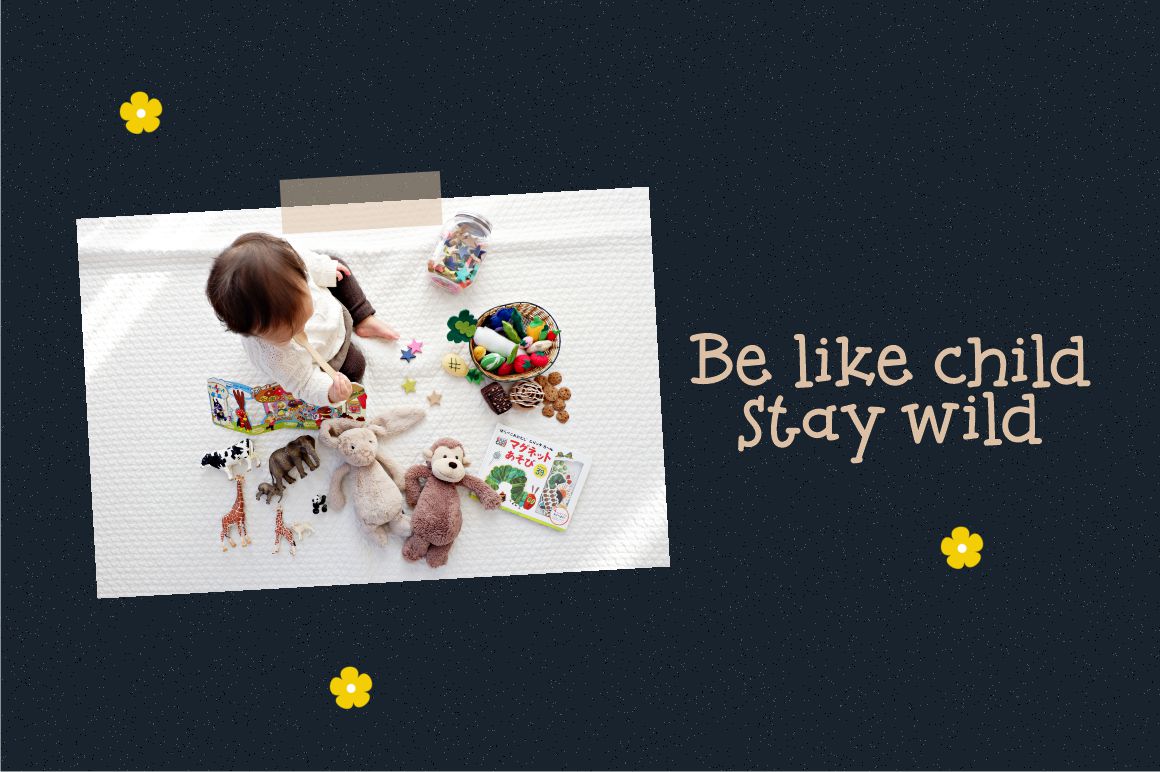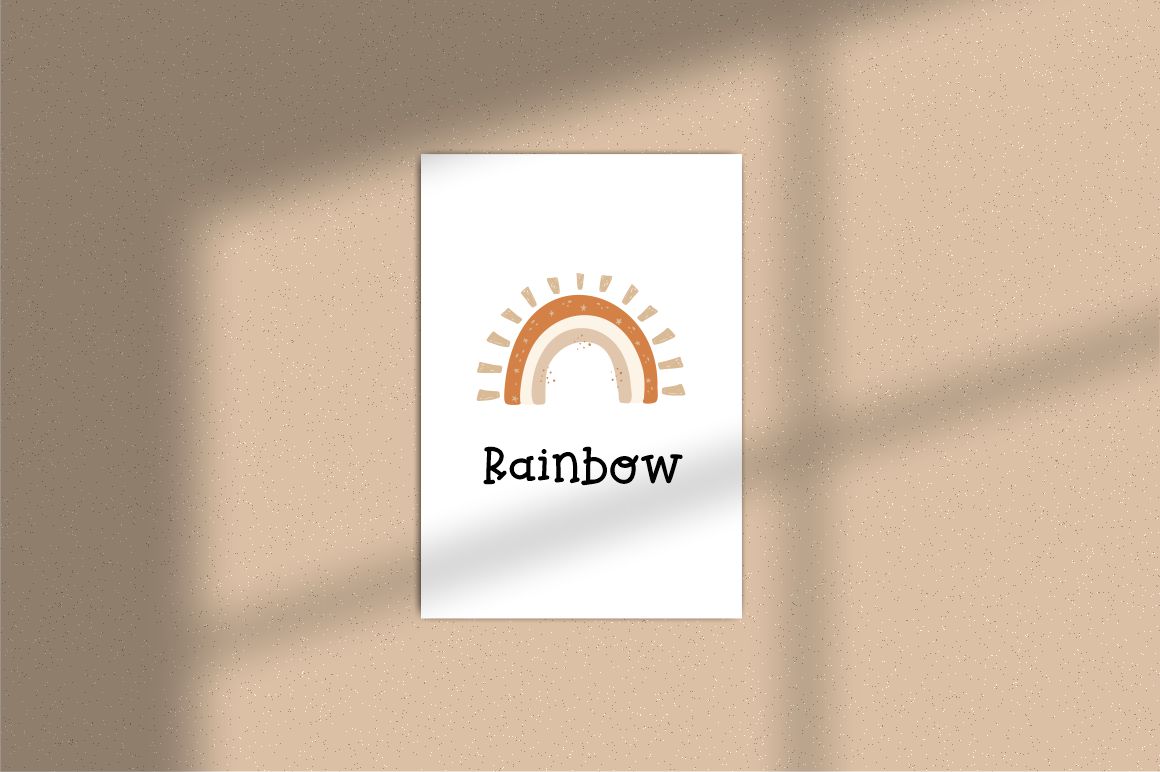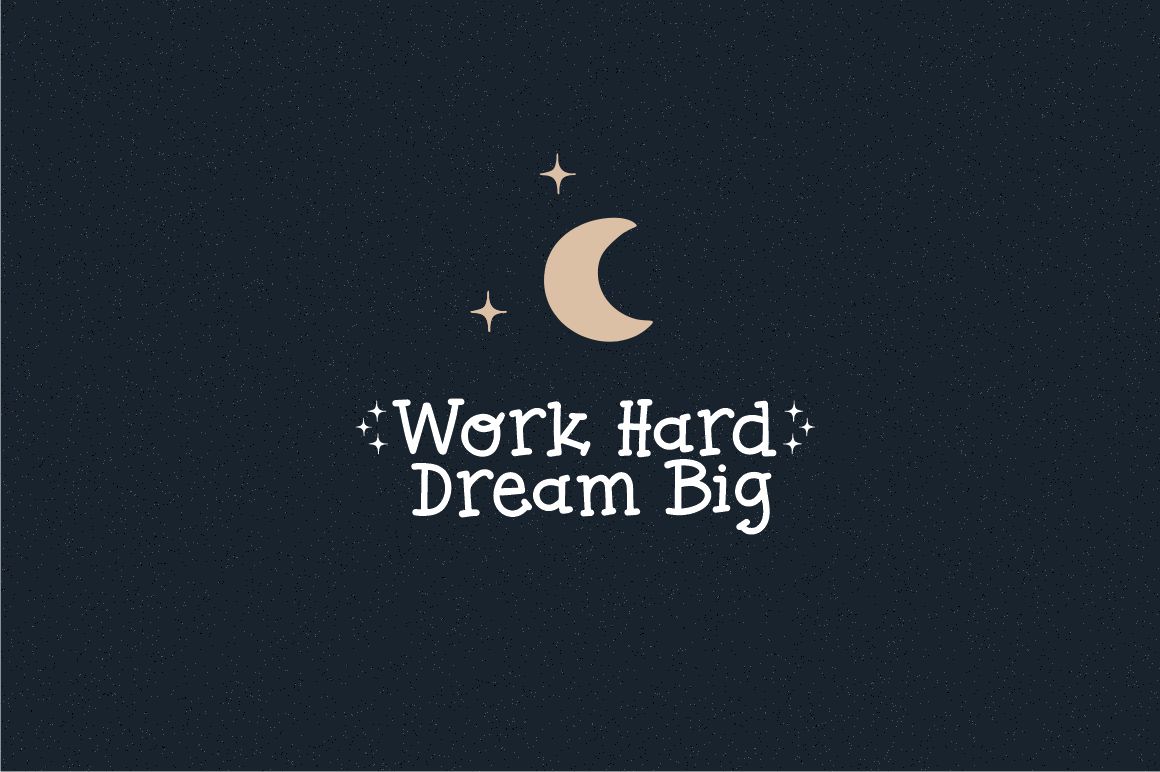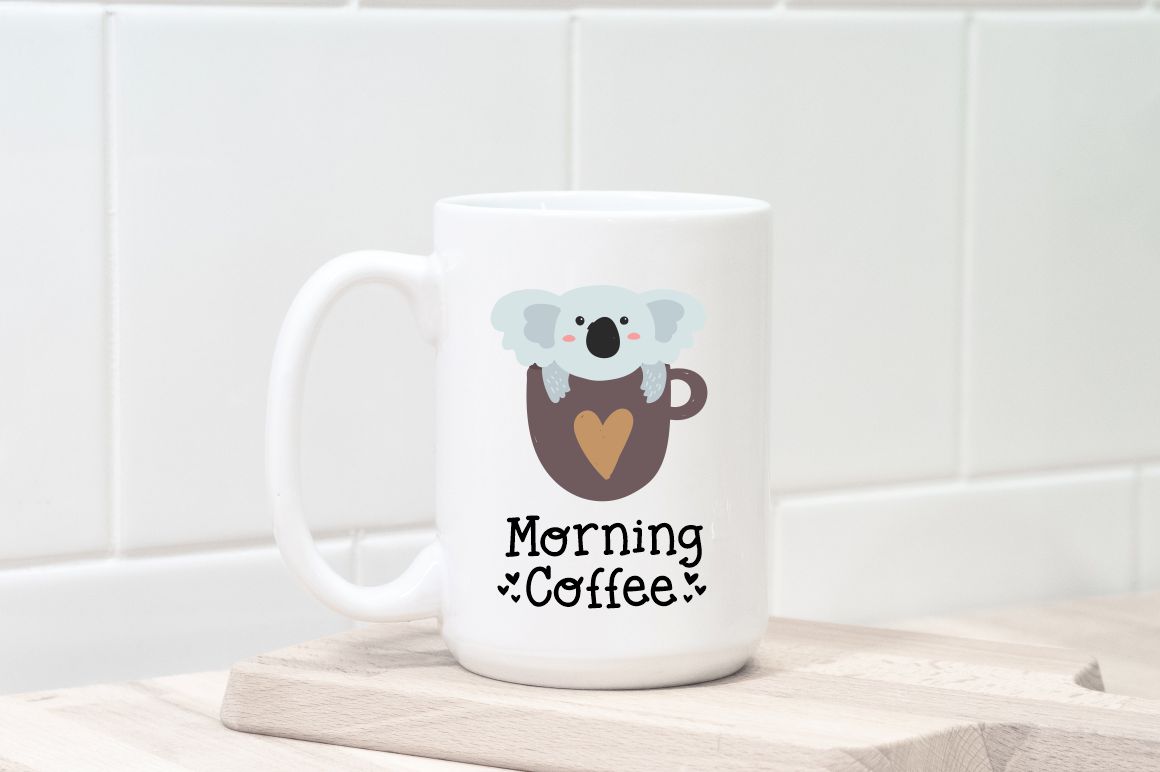
Playful Koala Font
Playful Koala Display Font
This is a cute and fun typeface. It’s hand-lettered with lots of love and made for the young at heart. Playful Koala will be perfect for books, greeting cards, logos, posters or anything that requires a fun and happiness look!